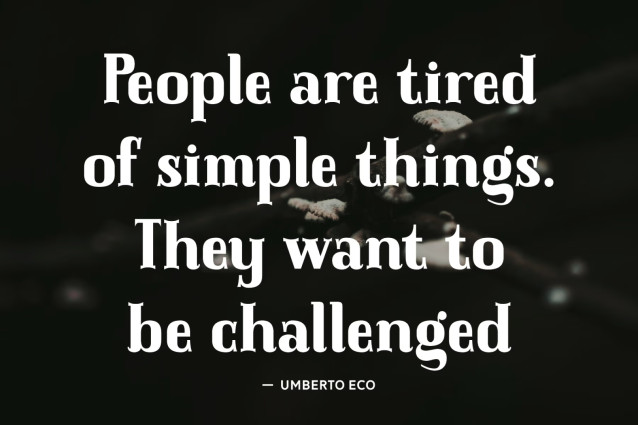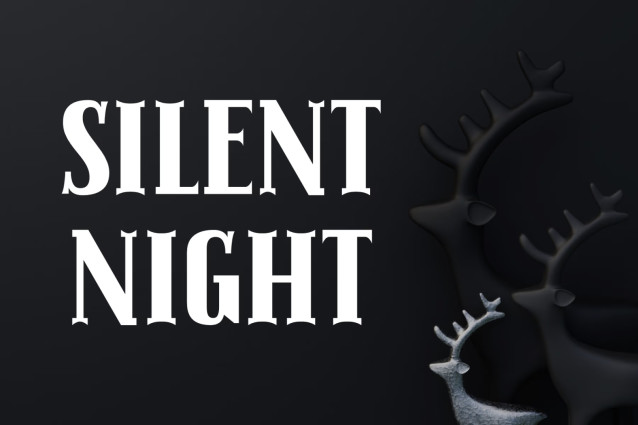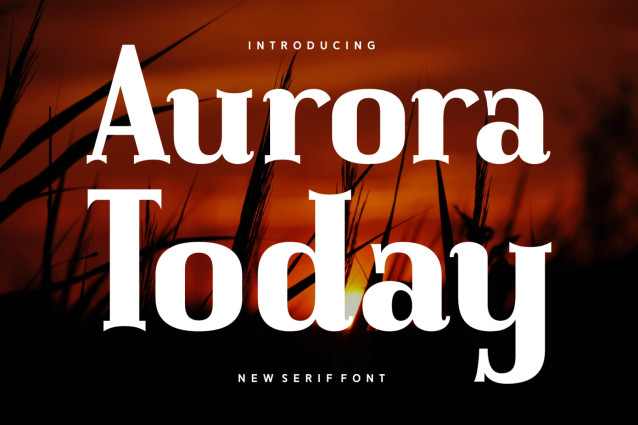
Aurora Today Font
Experience the timeless blend of elegance and contemporary style with “Aurora Today.” This Serif font offers a sleek charm, perfect for brands looking to make a statement. Its graceful aesthetic makes it an ideal choice for photography accents and apparel branding. Authentic and easy-to-read, “Aurora Today” lends itself beautifully to book covers, magazines, and an array of sophisticated packaging designs.
From greeting card inscriptions to standout quotes, every stroke of this font exudes polished elegance. The perfectly rounded and smooth curves also make it a popular choice for logotypes and t-shirt prints. Embrace the trend with the fashionable and perfectly designed “Aurora Today” font. Its versatility and modern appeal is sure to elevate your designs to great heights.